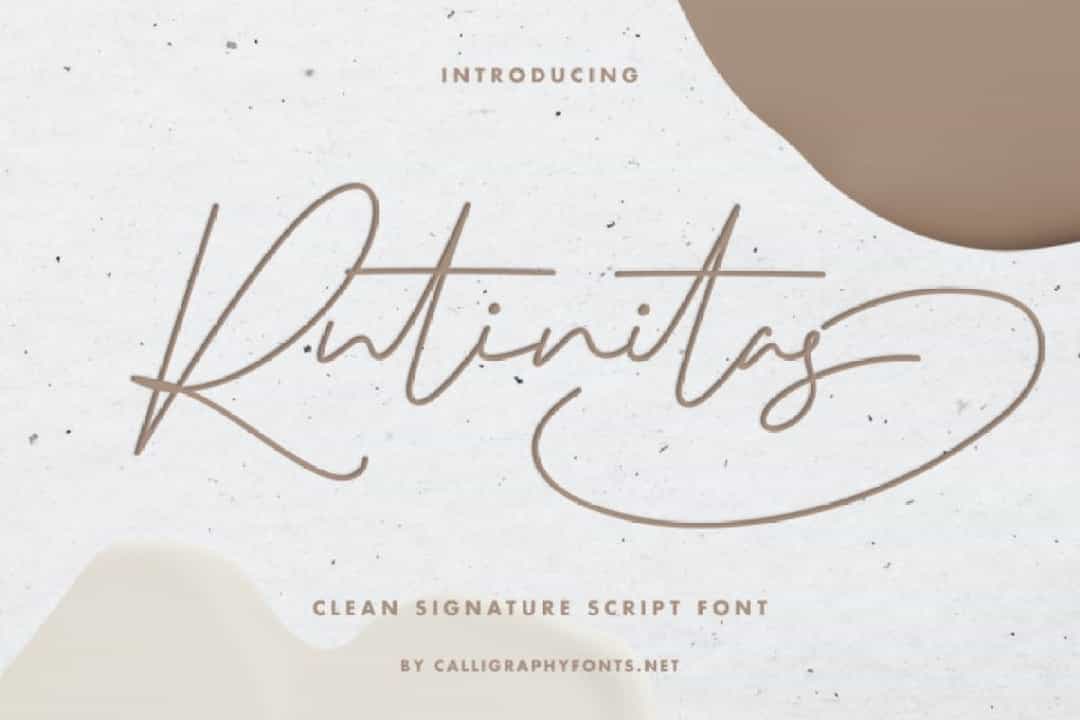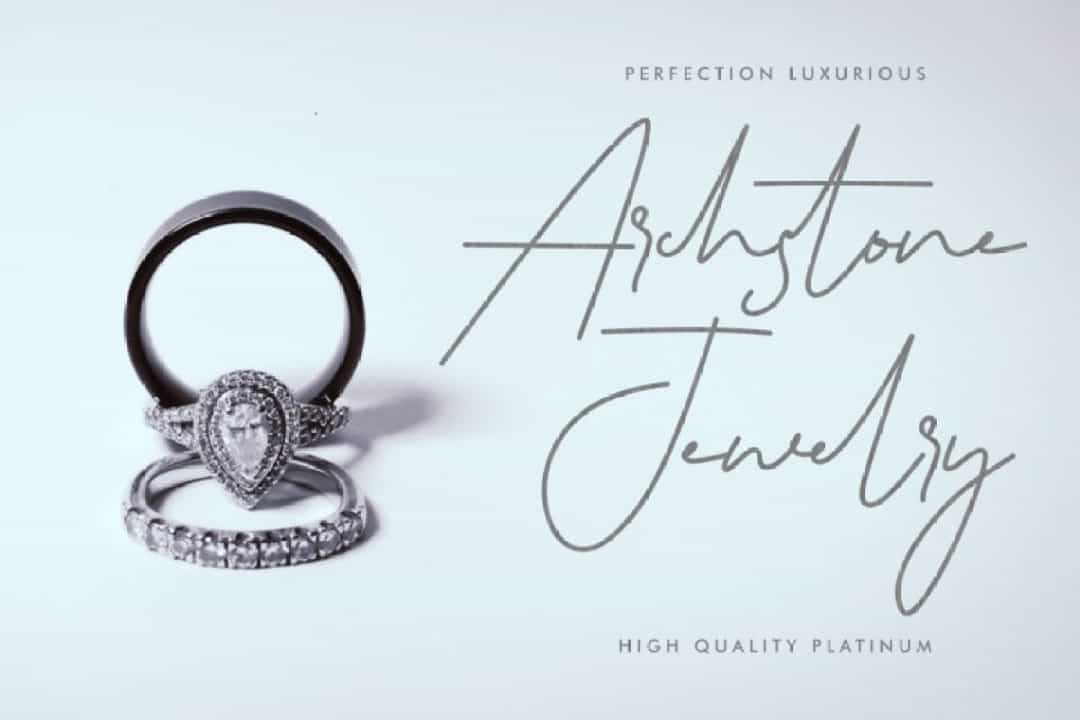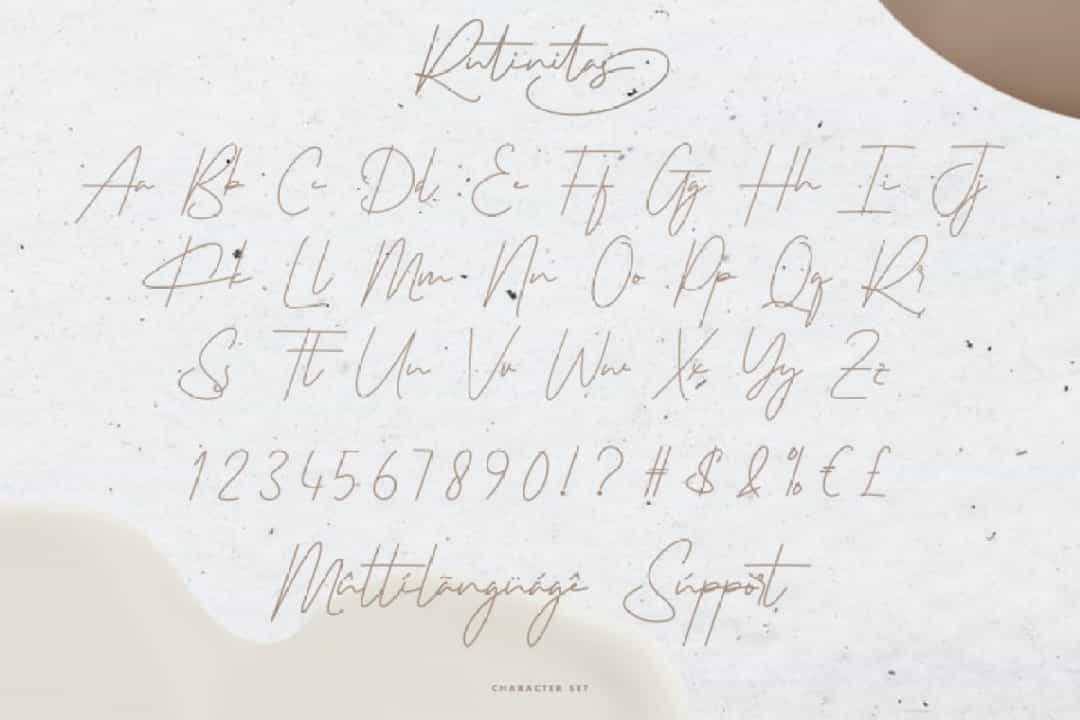
Rutinitas is one of the professional handwritten fonts that has its own special style. This font can be described as modern, distinctive, classy, luxurious, and simple lettering styles – the minimalist modern sophistication is the key feature of this font, and the lettering forms used are modernized, simple, and luxurious.